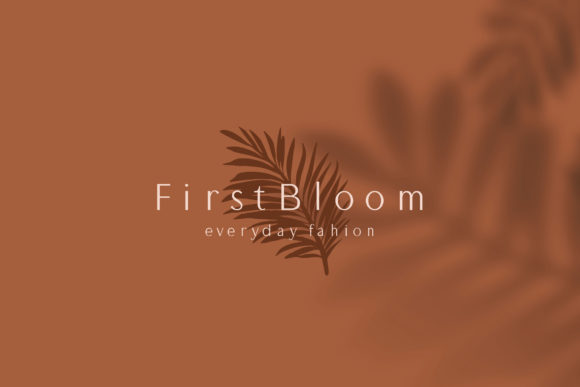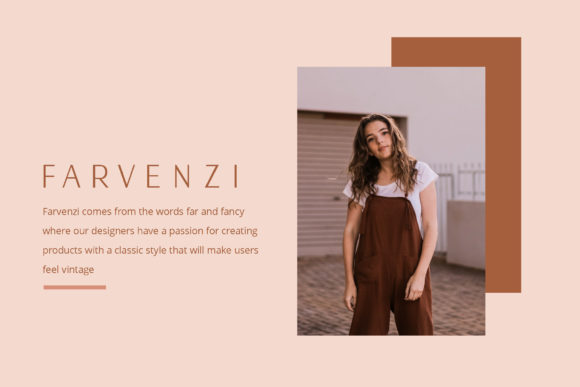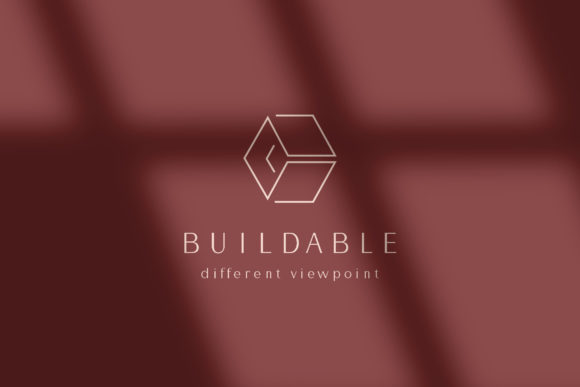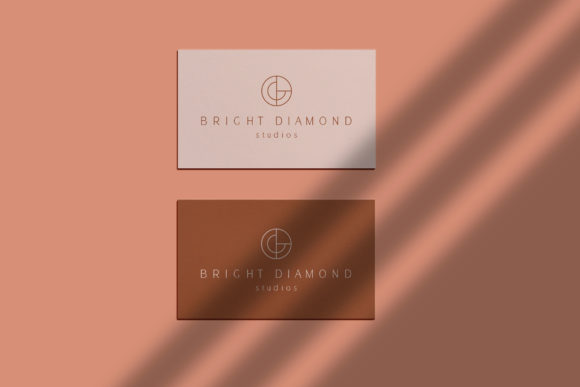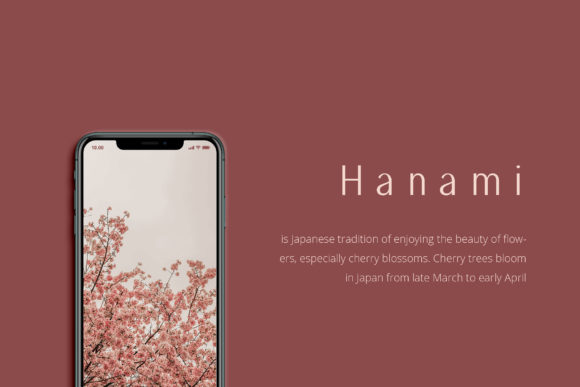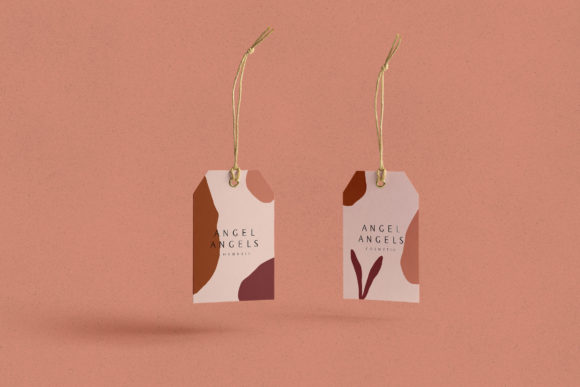
Introducing Amaryllis Font: Elevate Your Designs with a Touch of Elegance
In the world of typography, fonts play a crucial role in conveying the tone and personality of a design. For designers and crafters seeking a classy and modern sans serif font with an editorial style, Amaryllis Font is an exceptional choice. In this article, we’ll dive into the features, benefits, and uses of Amaryllis Font, helping you understand why it’s a must-have in your typography arsenal.
What is Amaryllis Font?
Amaryllis Font is a sophisticated sans serif font designed to bring a touch of elegance to your designs. Its clean lines, precise curves, and balanced proportions make it perfect for editorial projects, branding, and digital media. The font’s modern aesthetic and versatility have made it a favorite among designers and crafters worldwide.
Key Features of Amaryllis Font
- Classy and Modern Design: Amaryllis Font boasts a sleek, contemporary look that’s ideal for designs requiring a high level of sophistication.
- Sans Serif Style: The font’s sans serif style ensures clarity and readability, making it suitable for body text, headings, and titles.
- Editorial Style: Amaryllis Font is specifically designed with an editorial style in mind, making it perfect for magazines, blogs, and other publications.
- Versatility: This font can be used for a wide range of projects, from digital media and branding to print materials and crafts.
Benefits of Using Amaryllis Font
So, why choose Amaryllis Font for your next project? Here are some benefits that set it apart:
- Enhance Readability: Amaryllis Font’s clear and concise design ensures that your text is easy to read, even at small sizes.
- Elevate Your Brand: The font’s modern and classy look can instantly elevate your brand’s visual identity and make it more memorable.
- Time-Saving: With Amaryllis Font, you can create professional-looking designs quickly and efficiently, saving you time and effort.
Uses of Amaryllis Font
Amaryllis Font is an incredibly versatile typeface that can be used in a variety of projects, including:
- Magazines and Editorials: Add a touch of sophistication to your publications with Amaryllis Font’s elegant design.
- Branding and Logo Design: Create a lasting impression with a modern and classy logo that reflects your brand’s personality.
- Digital Media: Use Amaryllis Font in your website designs, social media graphics, and email newsletters to create a cohesive visual identity.
- Crafts and DIY Projects: Add a personal touch to your craft projects, such as handmade cards, invitations, and scrapbooking.
Tips for Using Amaryllis Font Effectively
To get the most out of Amaryllis Font, consider the following tips:
- Experiment with Font Sizes: Amaryllis Font looks great at various sizes, so don’t be afraid to experiment and find the perfect fit for your design.
- Pair with Other Fonts: Combine Amaryllis Font with complementary fonts to create visual interest and add depth to your design.
- Pay Attention to Kerning: Adjust the kerning to ensure that your text is evenly spaced and visually appealing.
Amaryllis Font is a stunning sans serif font that offers a perfect blend of classiness and modernity. With its editorial style and versatility, it’s an excellent choice for designers and crafters seeking to elevate their designs. Whether you’re working on a magazine, branding project, or digital media, Amaryllis Font is sure to make a lasting impression. So why wait? Give Amaryllis Font a try today and experience the power of beautiful typography!